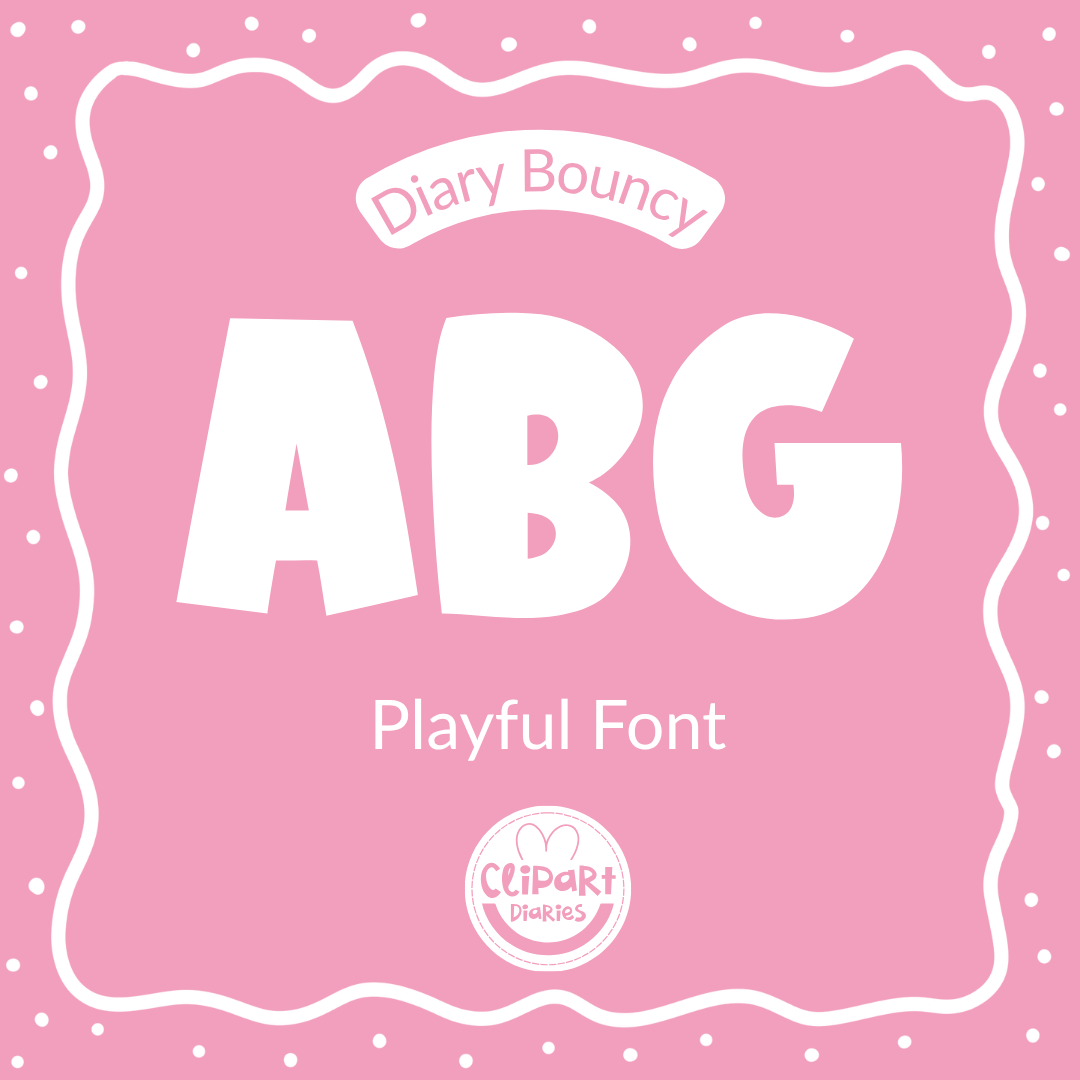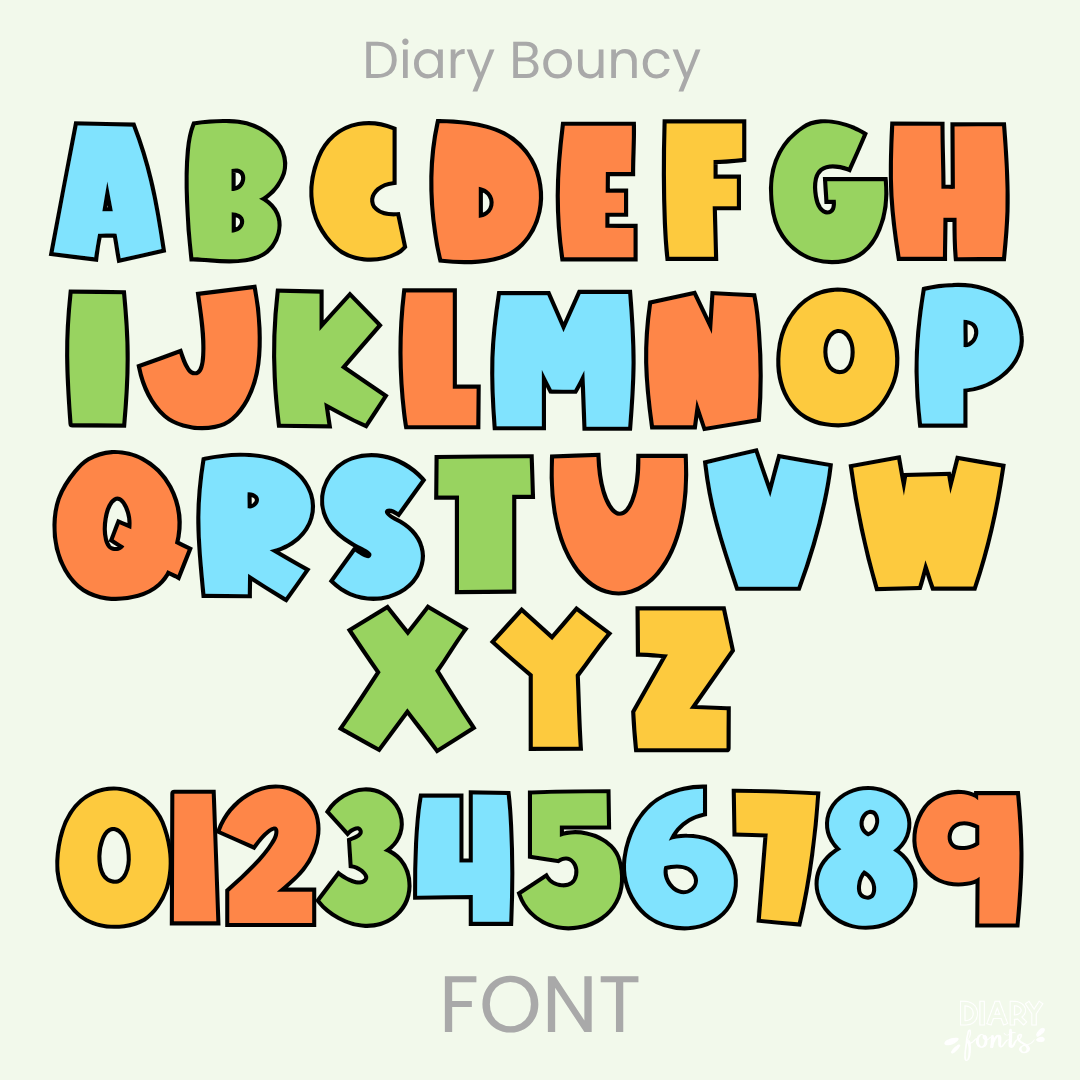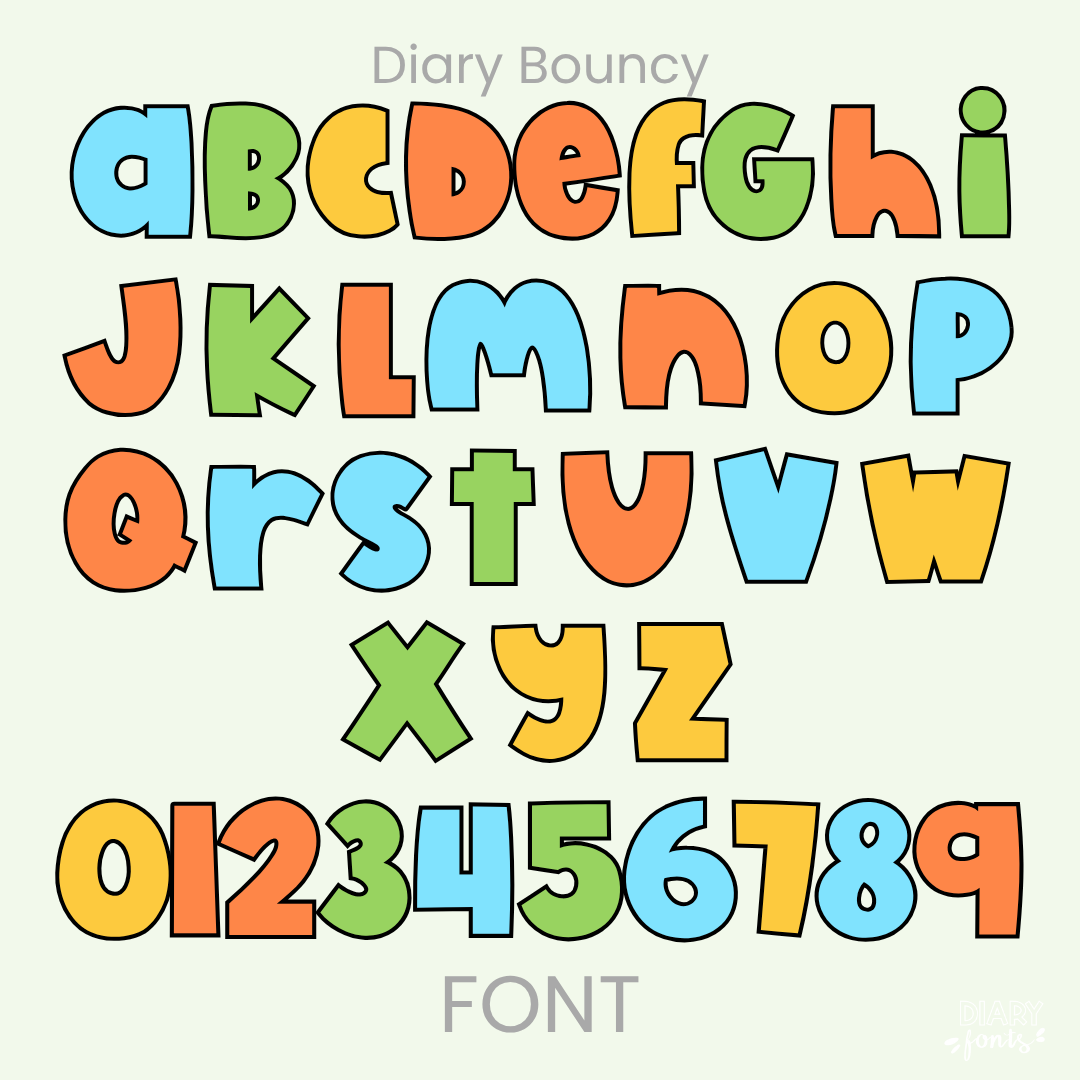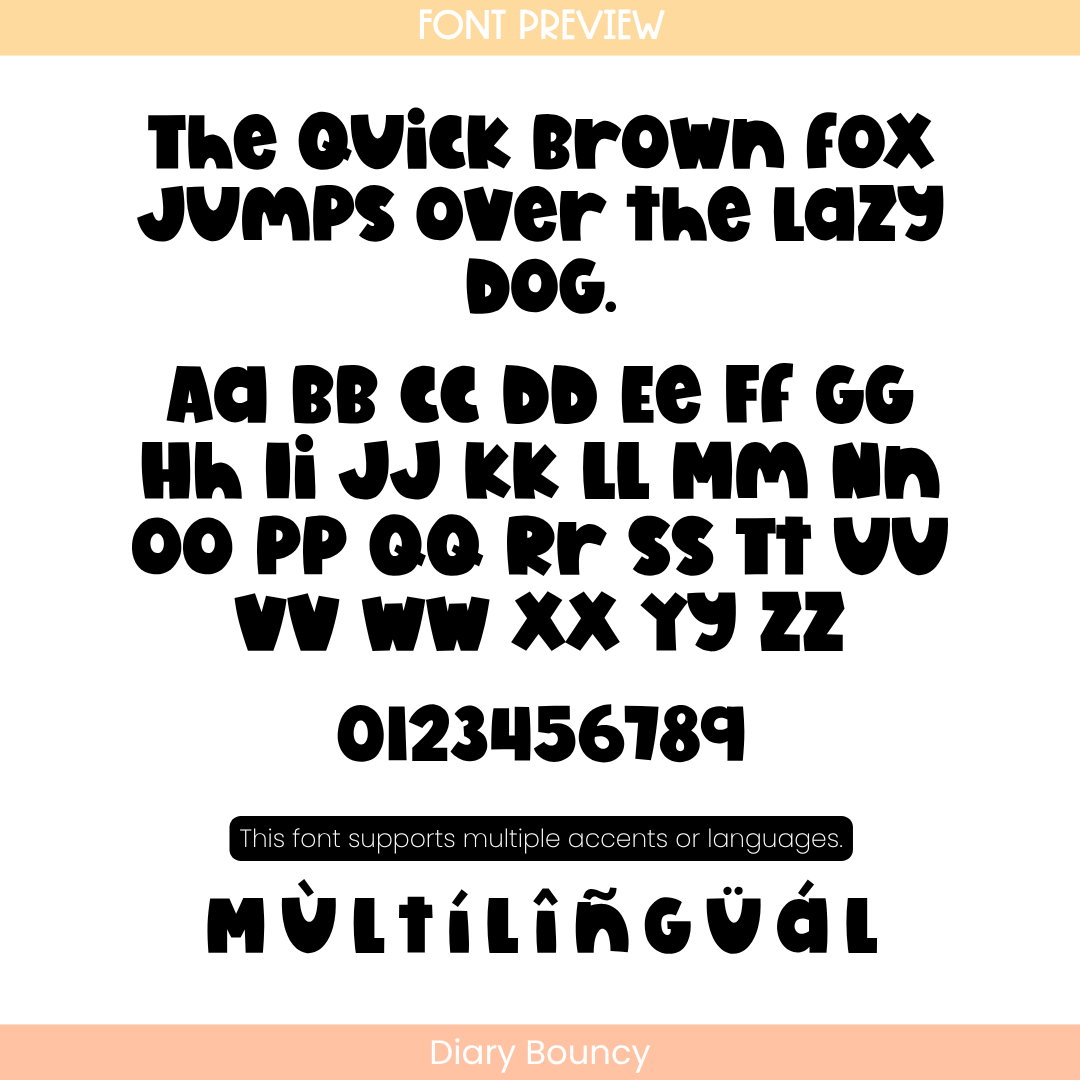
Make your classroom messages stand out with Diary Bouncy, a bold and chunky handwritten font that perfectly captures a cheerful, hand-drawn aesthetic. With its thick, solid letterforms, it provides excellent visibility, making it the ideal choice for eye-catching bulletin boards, high-impact headers, and primary educational resources. This comprehensive typeface includes uppercase and lowercase letters, numbers 0–9, and multi-language support for various accents. Specifically engineered for professional versatility, it works seamlessly with Canva, MS Office, and Adobe Apps, as well as popular iPad tools like GoodNotes and Procreate. Whether you are creating festive classroom decor or engaging worksheets, Diary Bouncy offers a polished, organic look that is perfect for both personal and commercial use.